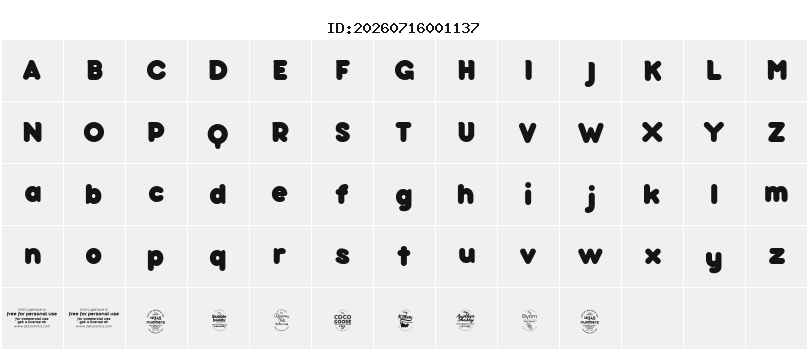
• Font Name: Bubbleboddy
• Full Font Name: Arista 2.0 Alternate Regular
• Designer: Francesco Canovaro
• Manufacturer: studio kmzero
About Bubbleboddy.ttf
Bubbleboddy.ttf is a modern, elegant sans-serif font designed for ultimate readability and visual harmony. Perfect for branding, headlines, web design, and print materials.